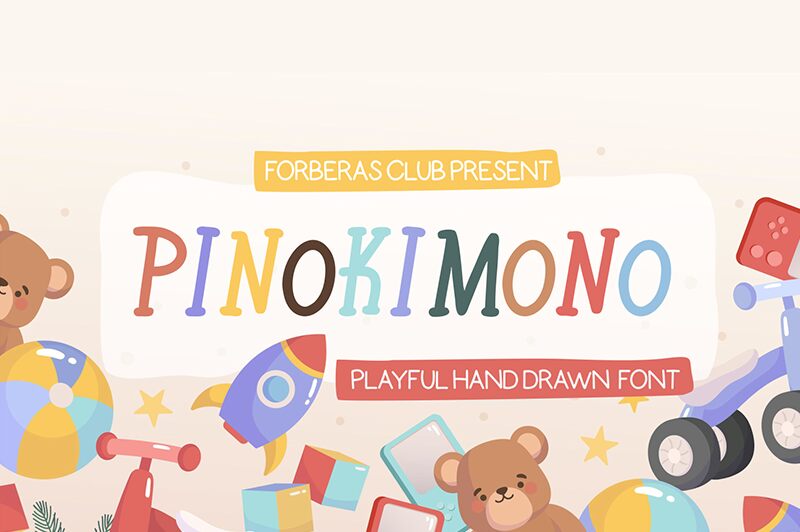
Pinokimono is a playful and narrow handwritten font, designed by For Beras Club. It is ideal for creating fun and lively projects such as greeting cards, logo designs, posters, book covers, children's books and more.